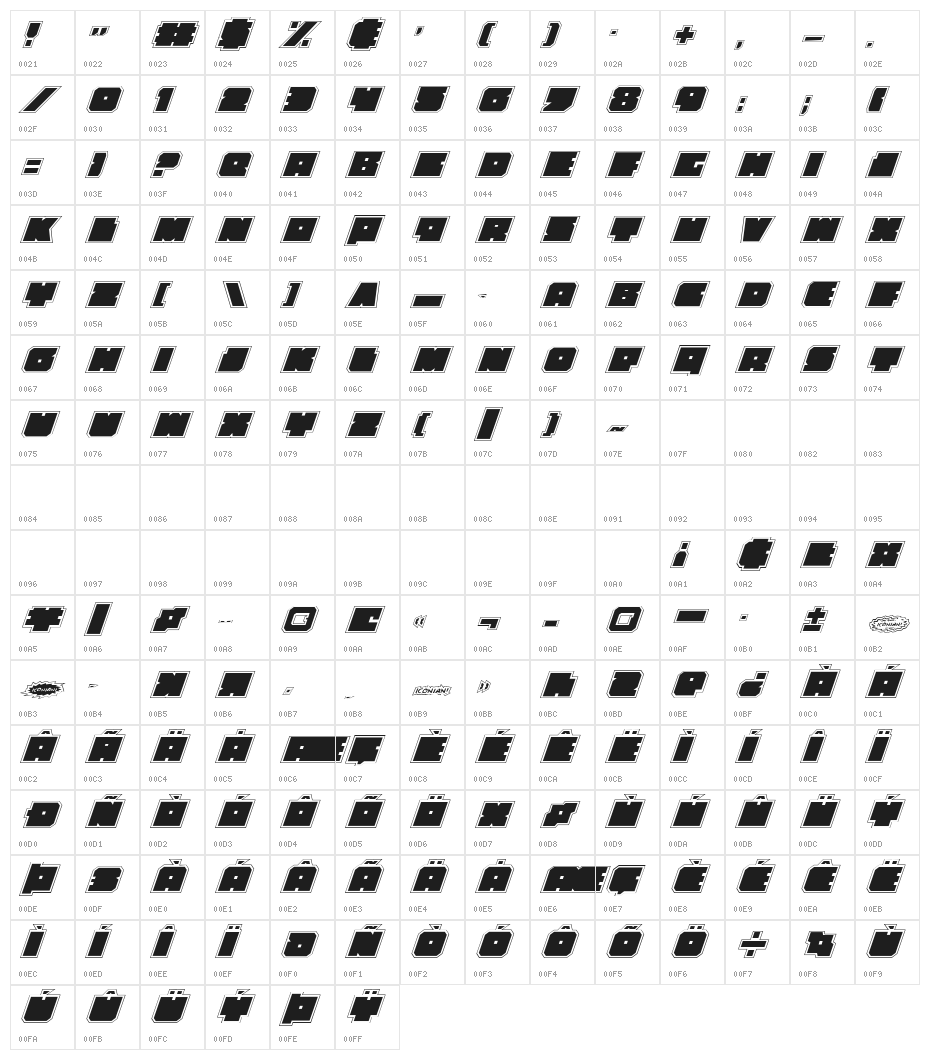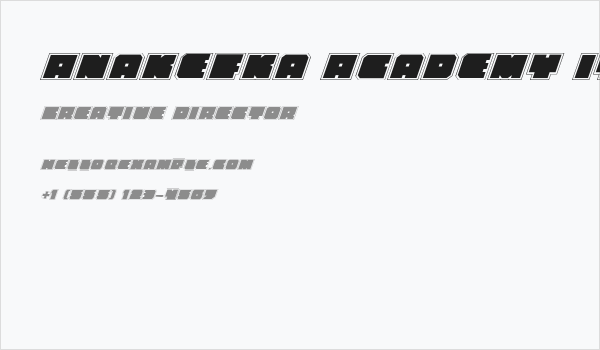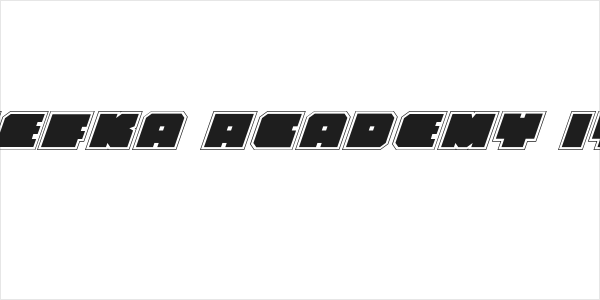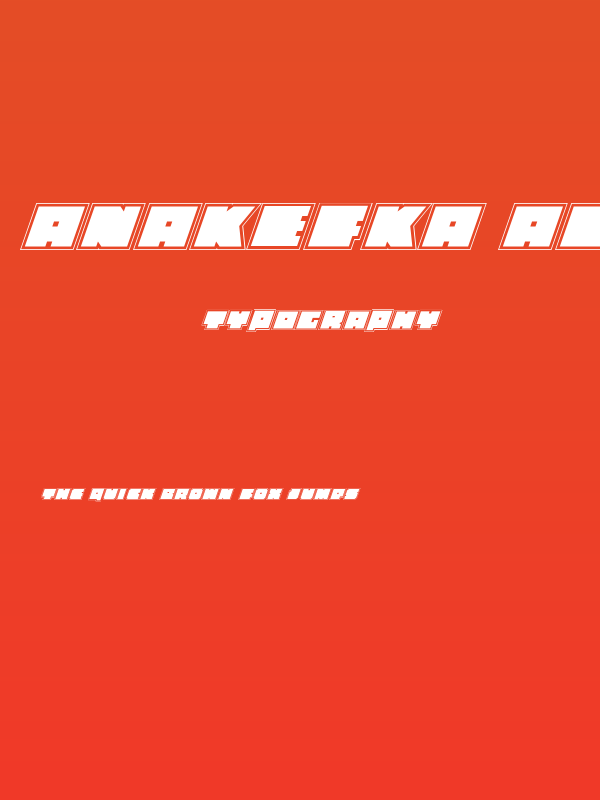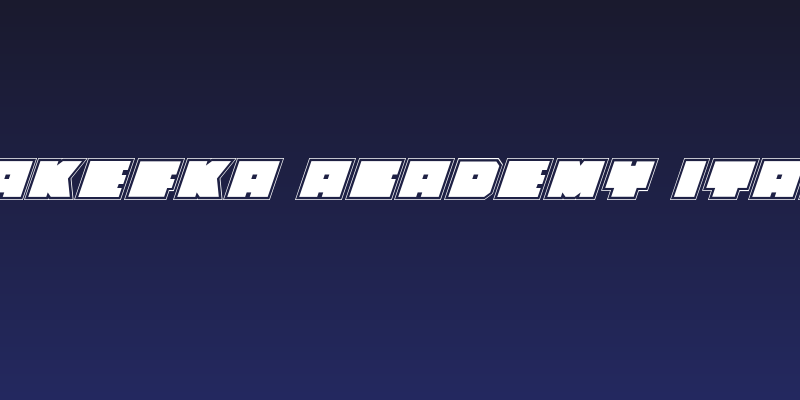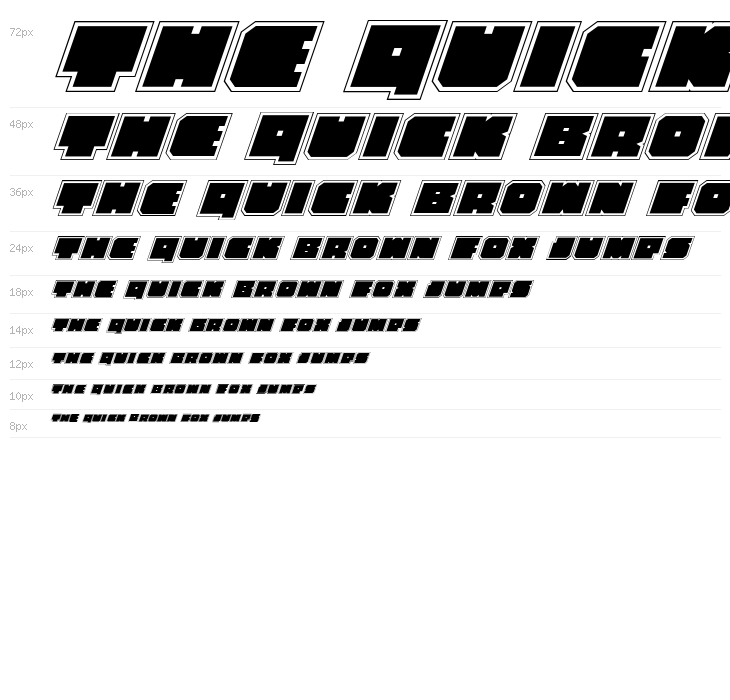
Anakefka Academy Italic Font
Anakefka Academy Italic Description
This font features a bold, italicized style with a strong geometric influence. The characters are blocky and angular, with a distinct three-dimensional effect created by the use of shadowing. The uppercase and lowercase letters maintain a consistent height, contributing to a uniform appearance. The numbers and special characters follow the same bold and angular design, ensuring a cohesive look across all glyphs. The font's unique style makes it stand out, offering a modern and edgy aesthetic that is both eye-catching and impactful.